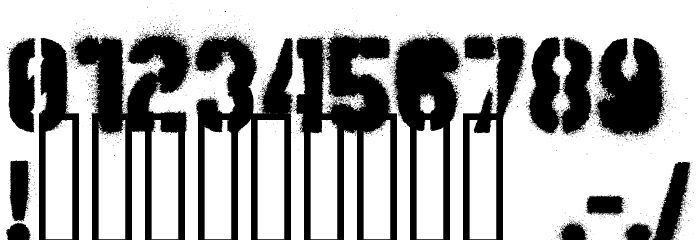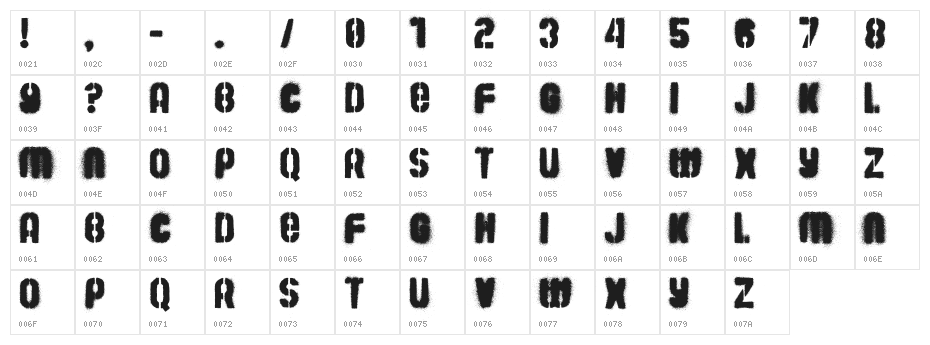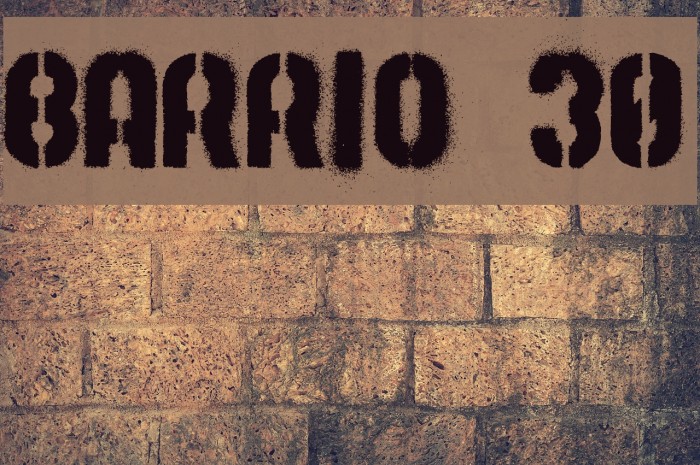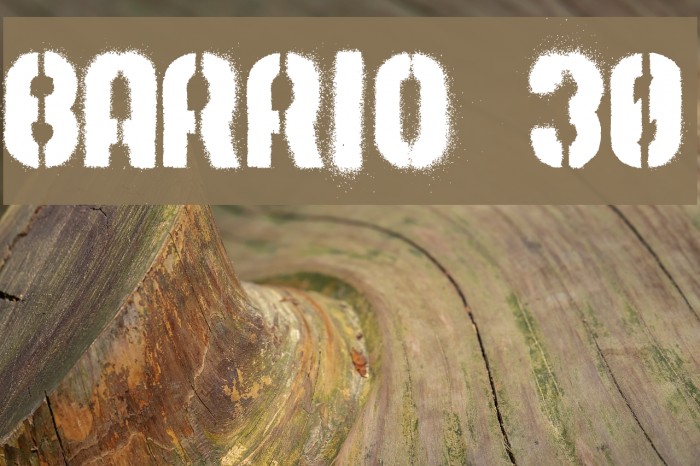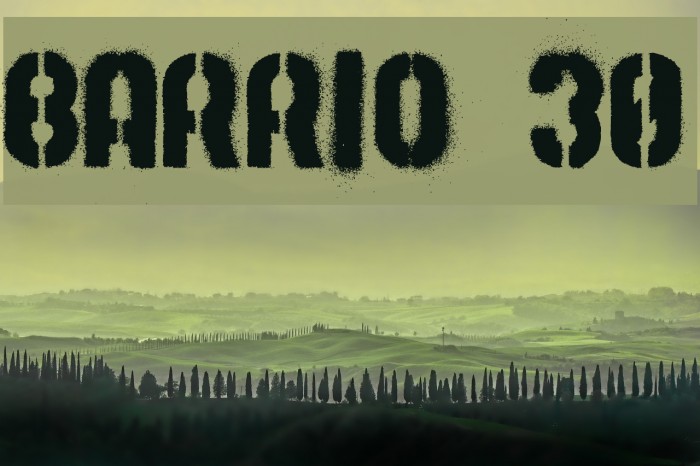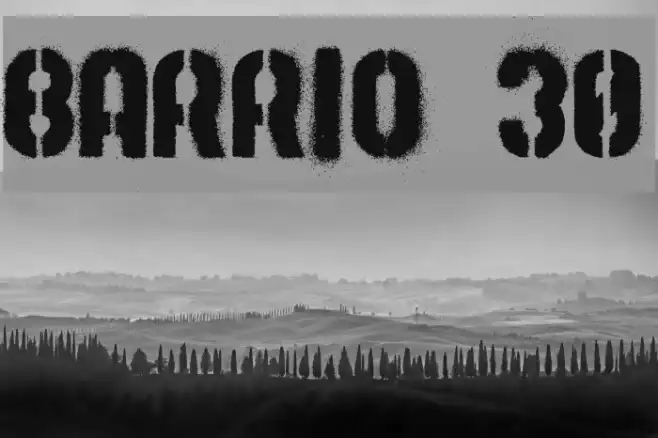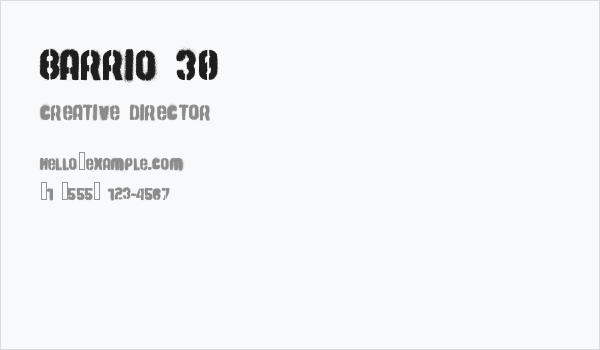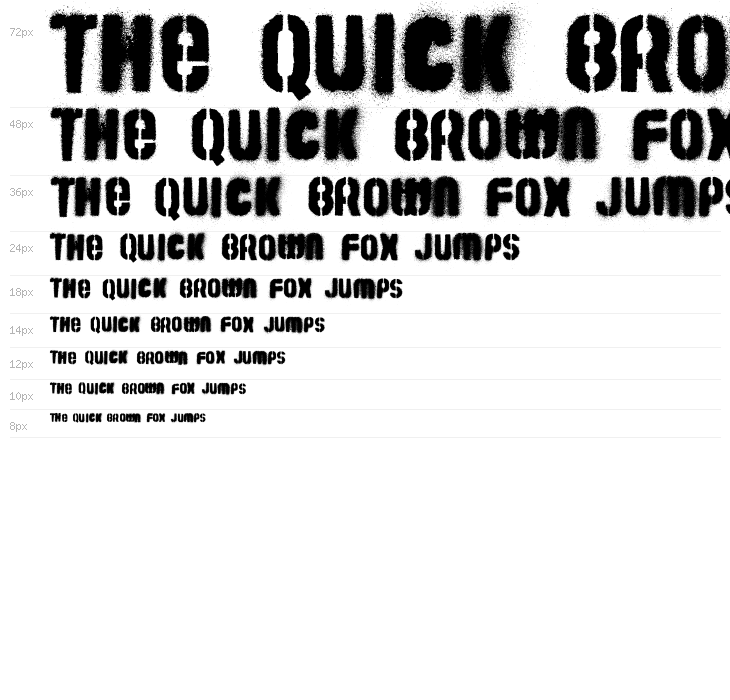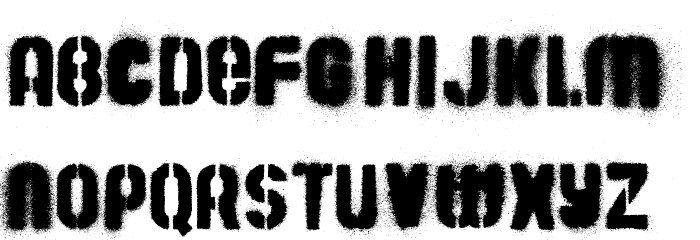
Barrio 30 Font
Barrio 30 Description
This font features a bold, stencil-like design with a distinct urban and industrial feel. The characters are heavily stylized with a spray-paint effect, giving them a gritty, textured appearance. The uppercase and lowercase letters maintain a uniform width, contributing to a cohesive and structured look. The numbers and special characters follow the same design principles, ensuring consistency across all elements. The font's unique style makes it stand out, ideal for projects that require a strong, impactful visual presence.
| Overall Style | Urban, Industrial, Edgy |
| Proposed Projects | Ideal for street art-inspired designs, urban-themed posters, edgy branding, and album covers. |